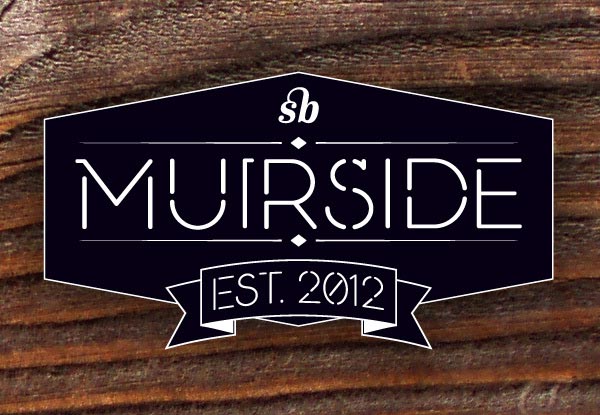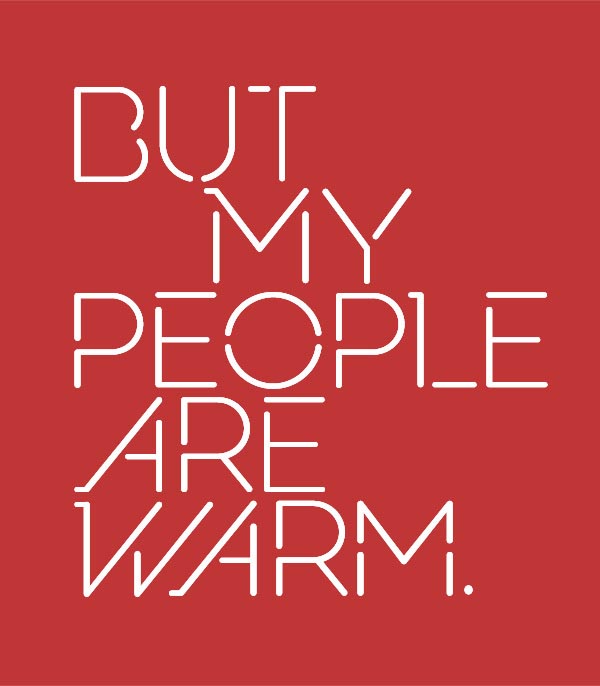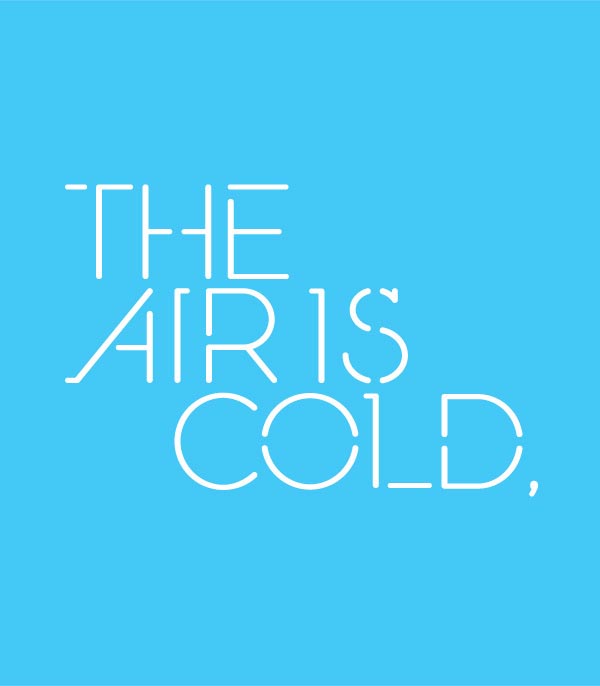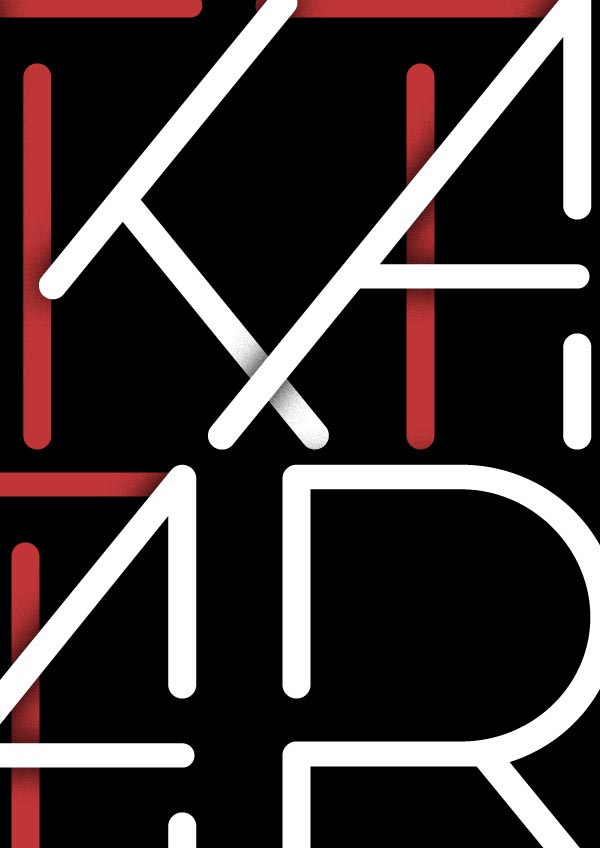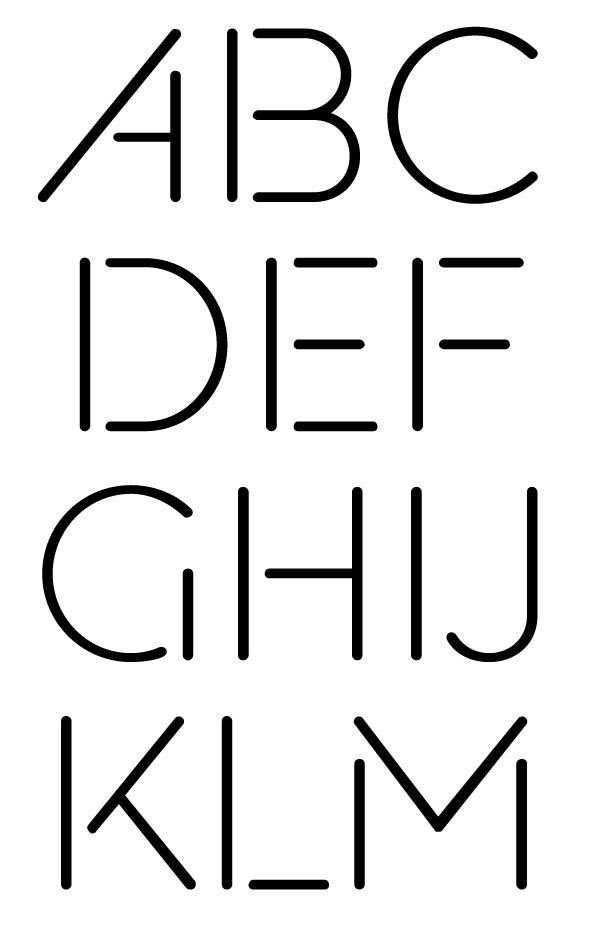
Muirside Font.
The typeface of the Muirside font by designer Steven Bonner is inspired the shape of bicycle frames. The font is based on classic American geometric proportions with a range of alternates.